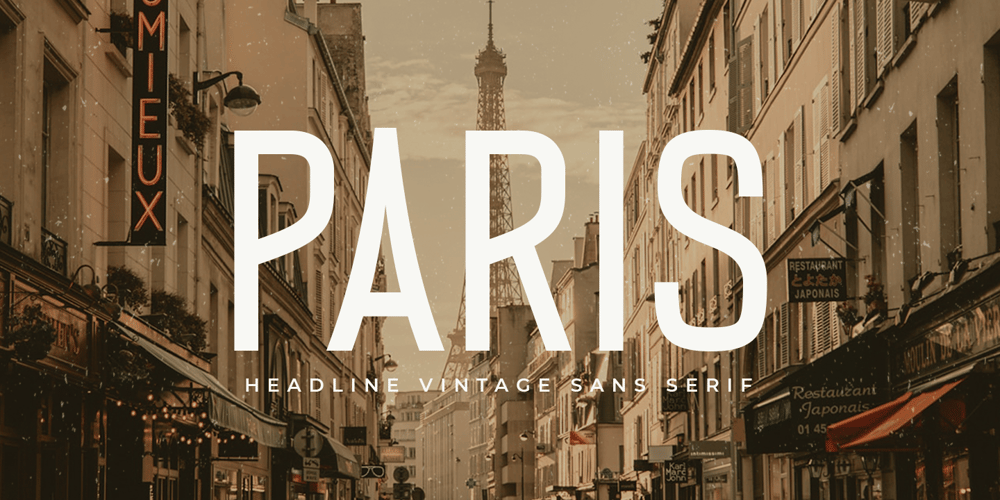
Paris SS Font Family was designed by Zamroni Hamzah and published by Sensatype Studio. Paris SS contains 1 styles and family package options. PARIS is a new Vintage Sans Serif font that perfect for Headline needs with all uppercase characters ready.Based on our experience as a graphic designer who works for a lot of companies, we often are requested to design a graphic with a vintage feels and modern style. So, we try to brainstorming and create this font to make the idea is going out. This is perfect for show off in historical style and vintage vibes but with small space. You will get vintage, modern, and certainly unique style with this font.PARIS font is also included full set of: All Uppercase letters Multilingual characters Numerals Punctuations Wish you enjoy our font. 🙂